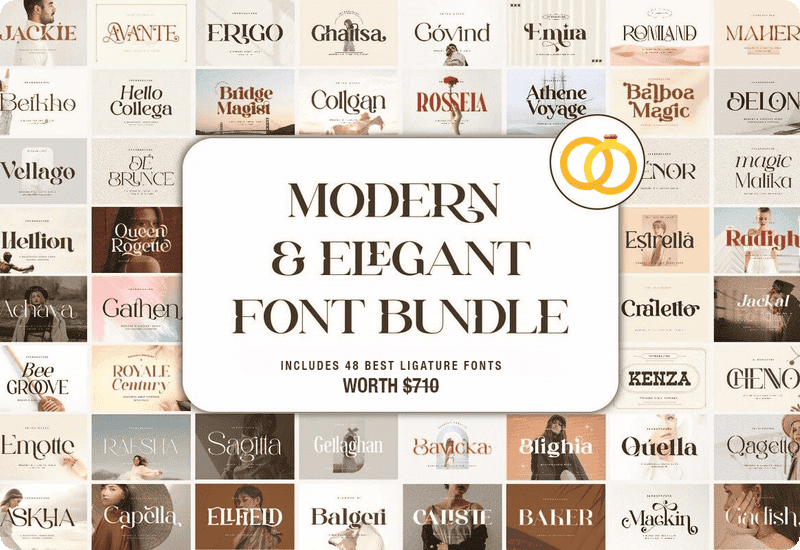
The Modern & Elegant Font Bundle is a carefully curated collection of 48 premium serif fonts, designed to bring sophistication and professionalism to any project. Whether you’re creating branding materials, logos, brochures, advertising content, or digital designs, this font bundle provides a versatile selection of typefaces to suit various styles and creative needs.
What’s Inside This Font Bundle?
This extensive collection includes 48 stunning serif fonts, ranging from modern, minimalist styles to classic, elegant typefaces.
✔ Sophisticated Serif Fonts – Perfect for luxury branding, high-end designs, and formal documents
✔ Bold & Stylish Lettering – Ideal for headlines, banners, and advertising materials
✔ Timeless Classic Fonts – Great for books, editorial layouts, and professional presentations
✔ Decorative & Artistic Typefaces – Suitable for wedding invitations, greeting cards, and creative typography
Some of the top-tier fonts included in this bundle:
- De Brunce Serif – A timeless serif with a contemporary twist
- Jackie Serif – Bold yet elegant, ideal for branding and logos
- Avante Serif – A clean and professional typeface for business designs
- Queen Rogette – A refined and sophisticated font for high-end projects
- Magic Malika – A stylish and modern serif perfect for creative typography
- Rossela Serif – A delicate yet bold font for unique layouts
- Gellaghan Serif – A vintage-inspired typeface with a luxurious appeal
- Hellion Fuentes – A versatile serif for editorial and advertising needs